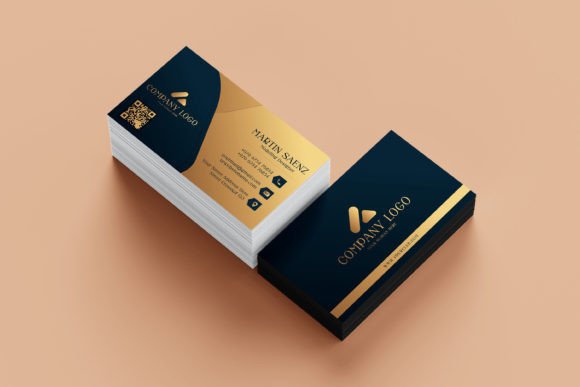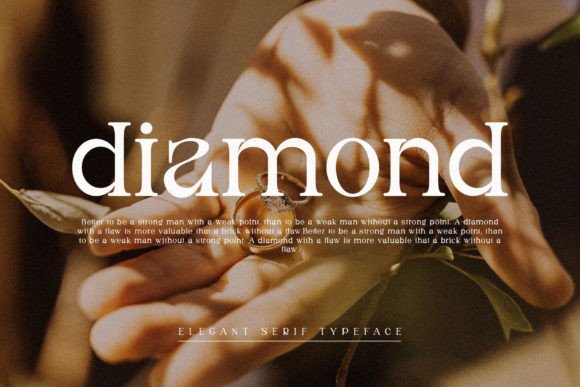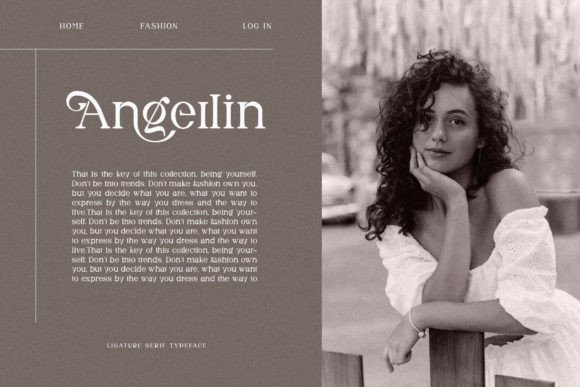
Introduction to Montsera Font Font
Fonts play a crucial role in design, and the Montsera Font font is a typeface that brings both character and versatility to any project. Whether you’re working on a branding project, a website, or a print design, the Montsera Font font offers a unique style that can elevate your work.
Montsera is an elegant, modern, and classy serif typeface – This font is both modern and nostalgic and works great for logos, magazines, and social media.
Already matched up and ready to be used for your next design For those who need a touch of elegance, style, class, and modernity for your designs, this font was created for you.
The Montsera Font font is more than just a typeface – it’s a design tool that helps you communicate your message with style and clarity. Its unique character set and versatile design make it suitable for a wide range of applications, from elegant invitations to bold headlines.
With its carefully crafted letterforms and balanced proportions, the Montsera Font font ensures readability and visual appeal across all mediums.
The Montsera Font font stands out with its unique design, exceptional readability, and versatility across various design applications.